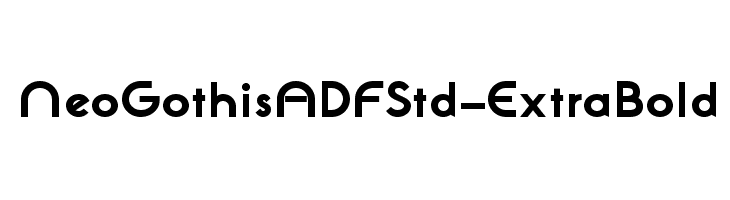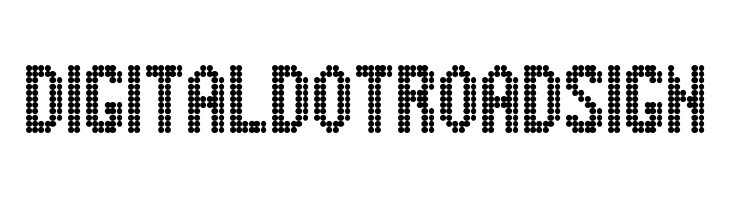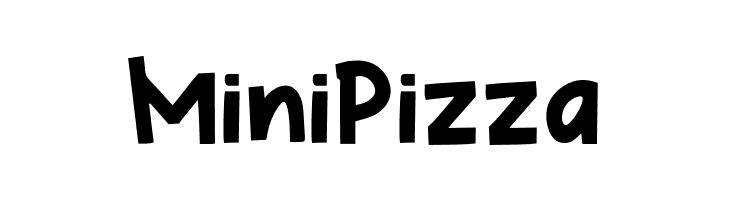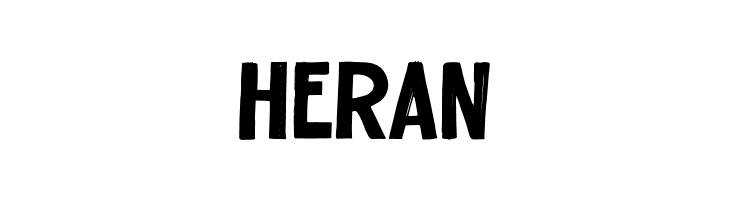
( Fonts by Arkandis Digital Foundry )
A bold, geometric font with a modern and clean design.
A playful, marker-style handwritten font with smooth, rounded strokes.
( Fonts by Darrell Flood )
A dot-matrix style font with a digital, retro aesthetic.
A playful, hand-drawn font with bold, rounded characters and a whimsical style.
( Fonts by Gassstype )
A bold, hand-drawn font with an artistic and playful style.
( Fonts by Ana )
A bold, high-contrast decorative font with elegant curves and expressive style.